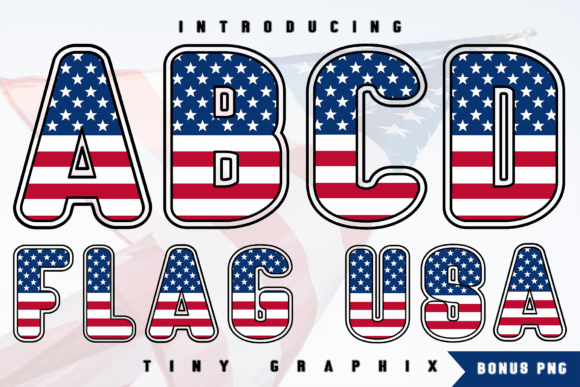
Embrace a Lively Celebration of Patriotism with Flag USA Font
Are you looking for a unique and exciting way to add a touch of patriotism to your projects? Look no further than the Flag USA Font, a decorative and multi-colored typeface that embodies the quintessential, star-spangled spirit of the United States. Inspired by the heartwarming patterns of the USA flag, this exceptional font is perfect for projects related to national occasions such as the Fourth of July or Memorial Day.
What is Flag USA Font?
Flag USA Font is a decorative typeface that combines the iconic colors and patterns of the American flag with a playful and modern twist. The font features a unique blend of red, white, and blue colors, with stars and stripes that evoke the spirit of patriotism and national pride. With its fun and lively design, Flag USA Font is perfect for adding a touch of excitement and energy to your projects.
Key Features of Flag USA Font
- Multi-colored design: The font features a vibrant and colorful design that incorporates the iconic colors of the American flag.
- Star-spangled pattern: The font includes a star-spangled pattern that adds a touch of patriotism and national pride to your projects.
- Playful and modern design: The font has a playful and modern design that is perfect for adding a touch of fun and excitement to your projects.
- Perfect for national occasions: The font is ideal for projects related to national occasions such as the Fourth of July or Memorial Day.
Benefits of Using Flag USA Font
Using Flag USA Font can add a unique and exciting touch to your projects. Here are some benefits of using this exceptional font:
- Adds a touch of patriotism: The font is perfect for adding a touch of patriotism and national pride to your projects.
- Creates a festive atmosphere: The font’s colorful and playful design creates a festive atmosphere that is perfect for national occasions.
- Perfect for DIY projects: The font is ideal for DIY projects, such as crafting, scrapbooking, and other creative endeavors.
Tips and Variations
Here are some tips and variations to help you get the most out of Flag USA Font:
- Experiment with different colors: Experiment with different colors and combinations to create a unique look.
- Use with other fonts: Use Flag USA Font with other fonts to create a contrasting and visually appealing design.
- Add graphics and images: Add graphics and images to your design project to create a more dynamic and engaging look.
- Use for digital and print projects: Use Flag USA Font for both digital and print projects, such as social media graphics, flyers, and brochures.
Flag USA Font is an exceptional and decorative typeface that embodies the quintessential, star-spangled spirit of the United States. With its multi-colored design, star-spangled pattern, and playful and modern design, this font is perfect for adding a touch of patriotism and national pride to your projects. Whether you’re working on a Fourth of July or Memorial Day project, or simply want to add a unique and exciting touch to your design, Flag USA Font is the perfect choice.
- What is Flag USA Font?: Flag USA Font is a decorative and multi-colored typeface that combines the iconic colors and patterns of the American flag with a playful and modern twist.